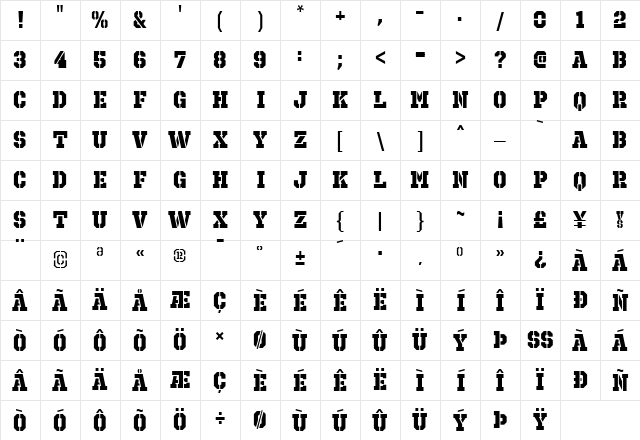
Octin Prison Heavy Free Font
Octin Prison Heavy
Octin Prison Family
Complete Octin Prison Heavy glyph index. Displaying only characters natively supported by Octin Prison Heavy font.
Design Context for Octin Prison
Octin Prison is a composed and adaptable typeface that performs quietly and consistently across a wide range of design contexts.